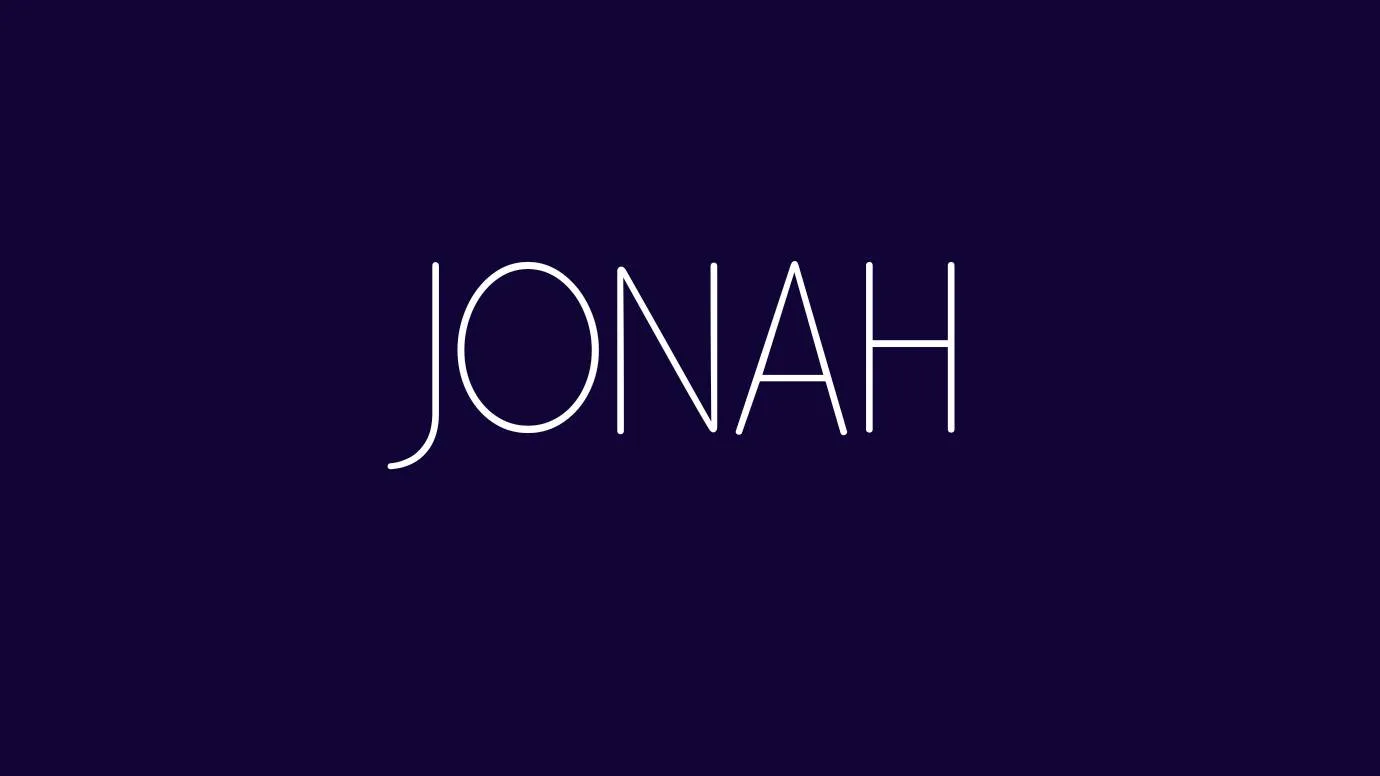
Jonah Font Family is a classic typeface that has a thin and straight look and is categorized in the class of sans serif fonts. This tremendous typeface was mainly designed by Erik Yin.
Jonah Font
TypeSans Serif
DesignerErik Yin